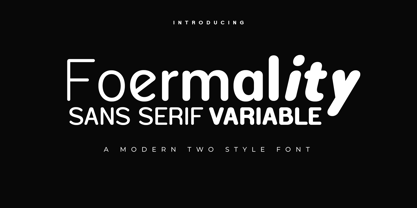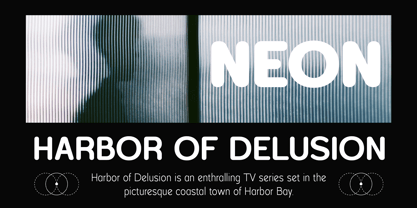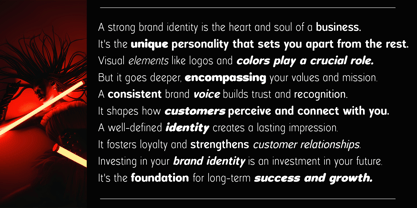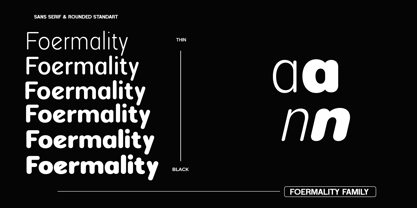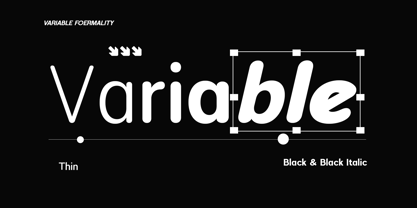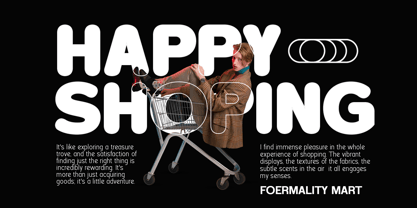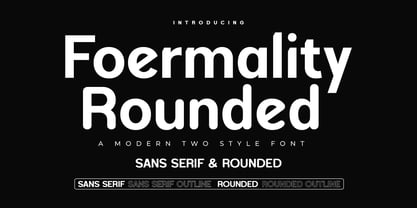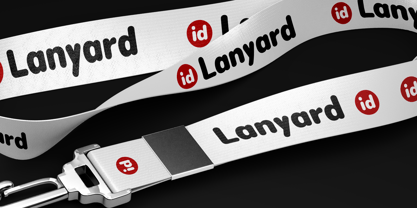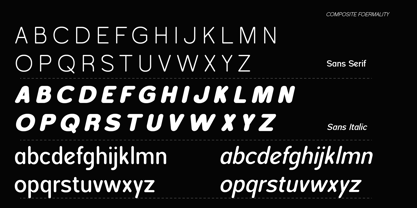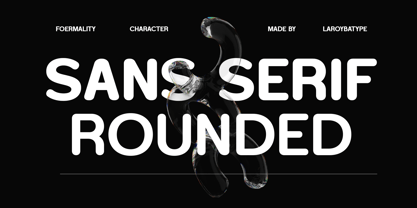
Foermality Rounded Variable
by Laroyba Type
The Foermality Rounded Variable Font Family was designed by Habib Abdur Rofi and published by Laroyba Type. Foermality Rounded Variable contains 2 styles and family package options.
Foermality Rounded Variable is a friendly and approachable interpretation of the Foermality type family. Featuring smooth rounded terminals and soft curves, this typeface brings warmth and personality while maintaining the clean structure of a modern sans serif. The variable weight axis provides smooth flexibility from lighter styles to bold rounded forms, allowing designers to easily adjust the tone—from subtle and friendly to bold and playful. The italic variable adds movement and expressive rhythm, making it suitable for dynamic layouts and creative branding. Foermality Rounded Variable is perfect for projects that need a modern look with a human and approachable feel. Perfect for: Friendly branding Packaging design Social media graphics Creative posters UI and app design Features Variable weight axis Variable italic axis Smooth rounded terminals Friendly and modern personality Flexible for both display and branding Foermality is a versatile superfamily consisting of Sans, Serif, and Rounded styles, designed to work beautifully together across a wide range of design applications.
Designers: Habib Abdur Rofi
Publisher: Laroyba Type
Foundry: Laroyba Type
Design Owner: Laroyba Type